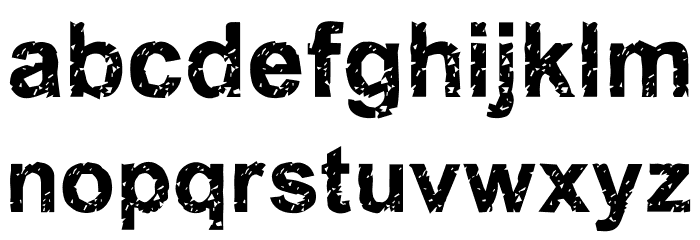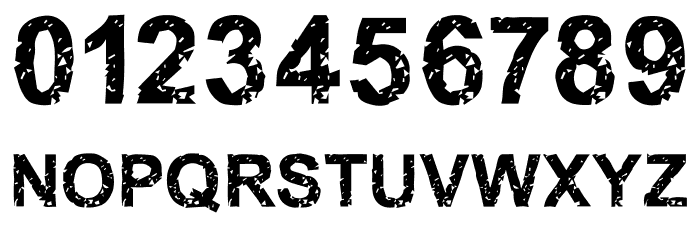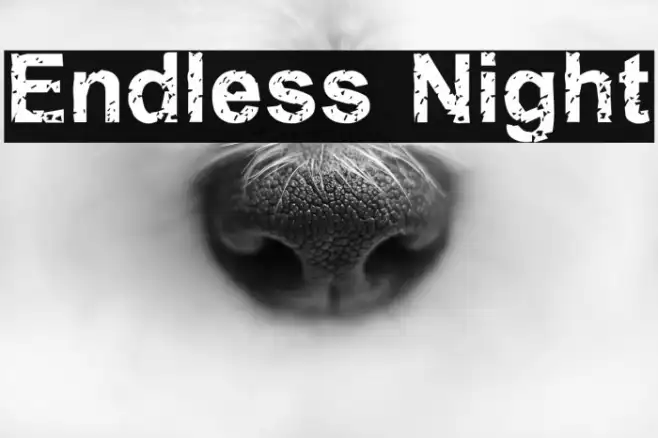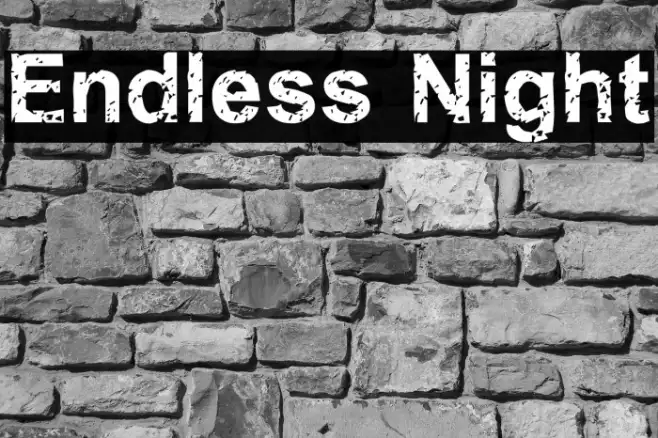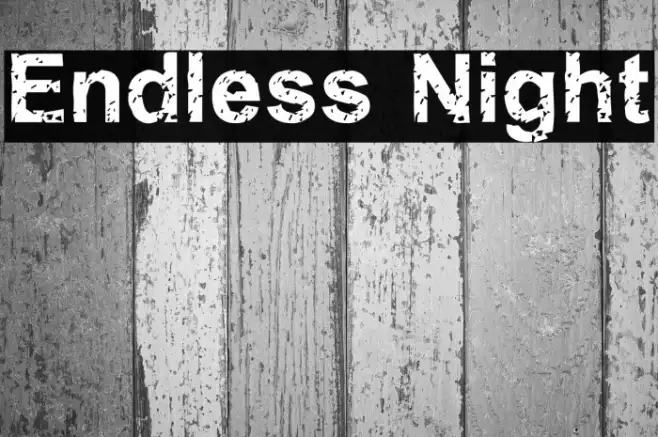
Endless Night Font
This font features a bold and distressed style, characterized by its rough, textured appearance that gives it a grunge or worn-out look. The uppercase and lowercase letters maintain a consistent boldness, with each character exhibiting unique distress marks that add to its rugged aesthetic. The numerals and special characters follow the same design, ensuring uniformity across all glyphs. This font's style is reminiscent of urban street art or vintage posters, making it stand out with its edgy and rebellious vibe.
A bold, distressed font with a grunge aesthetic.
- Proposed Projects: Ideal for music album covers, urban-themed posters, graffiti art, and edgy branding projects.
- Overall Style: Grunge, Urban, Vintage
- Use Case: Logos, Posters, Album covers